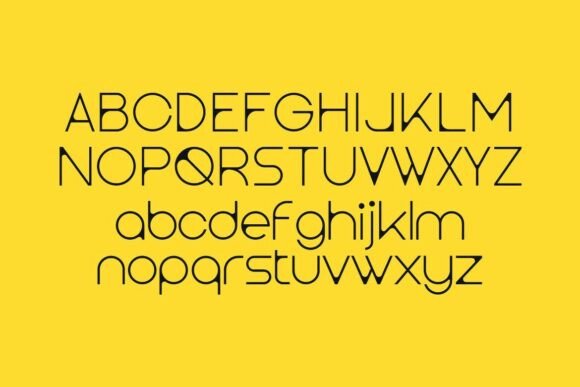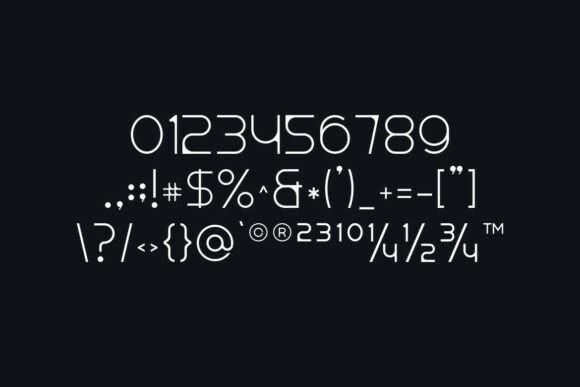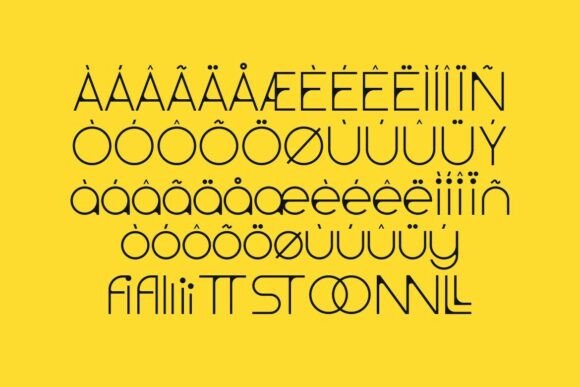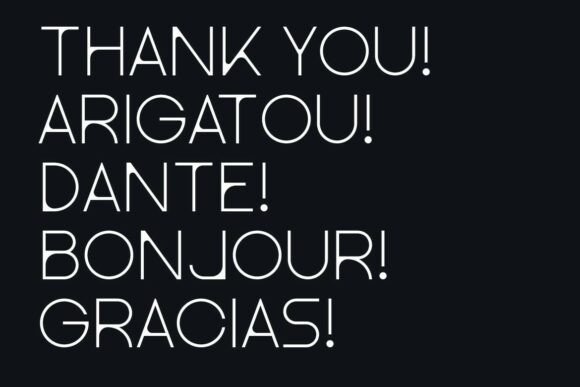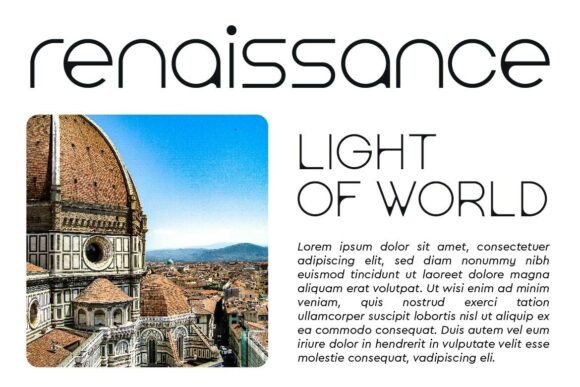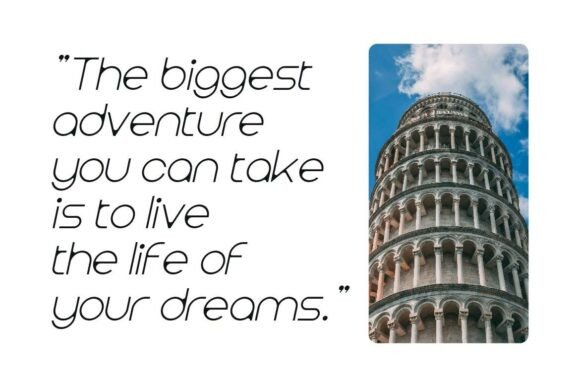
Introduction to Qrania Font
Qrania is a clean and refined sans serif font designed to bring elegance and simplicity to your typography.
With its smooth curves, balanced proportions, and geometric precision, Qrania works beautifully for branding, editorial layouts, packaging, websites, and social media graphics that demand a sleek, contemporary touch .
Key Features of Qrania Font
Why Choose Qrania Font?